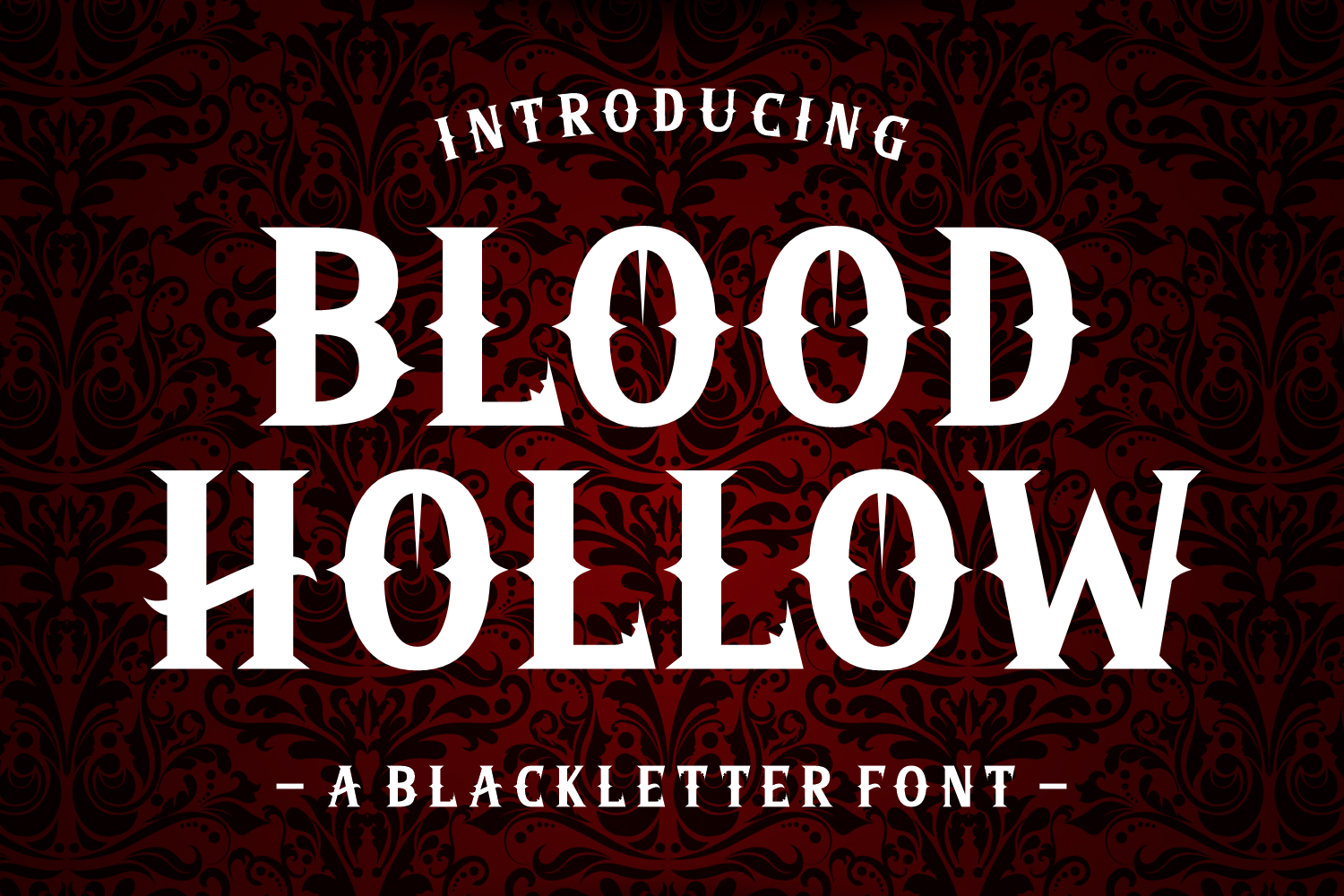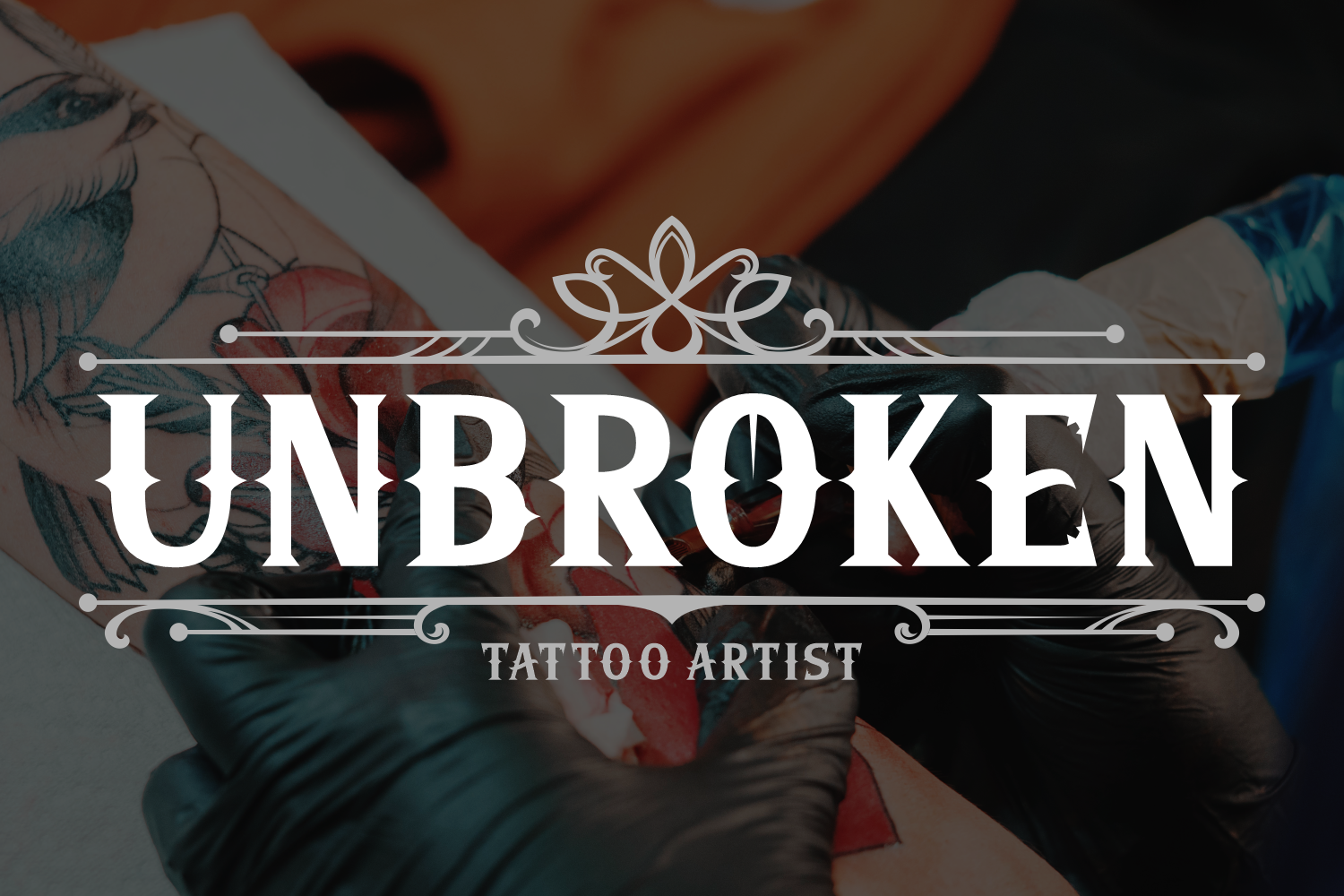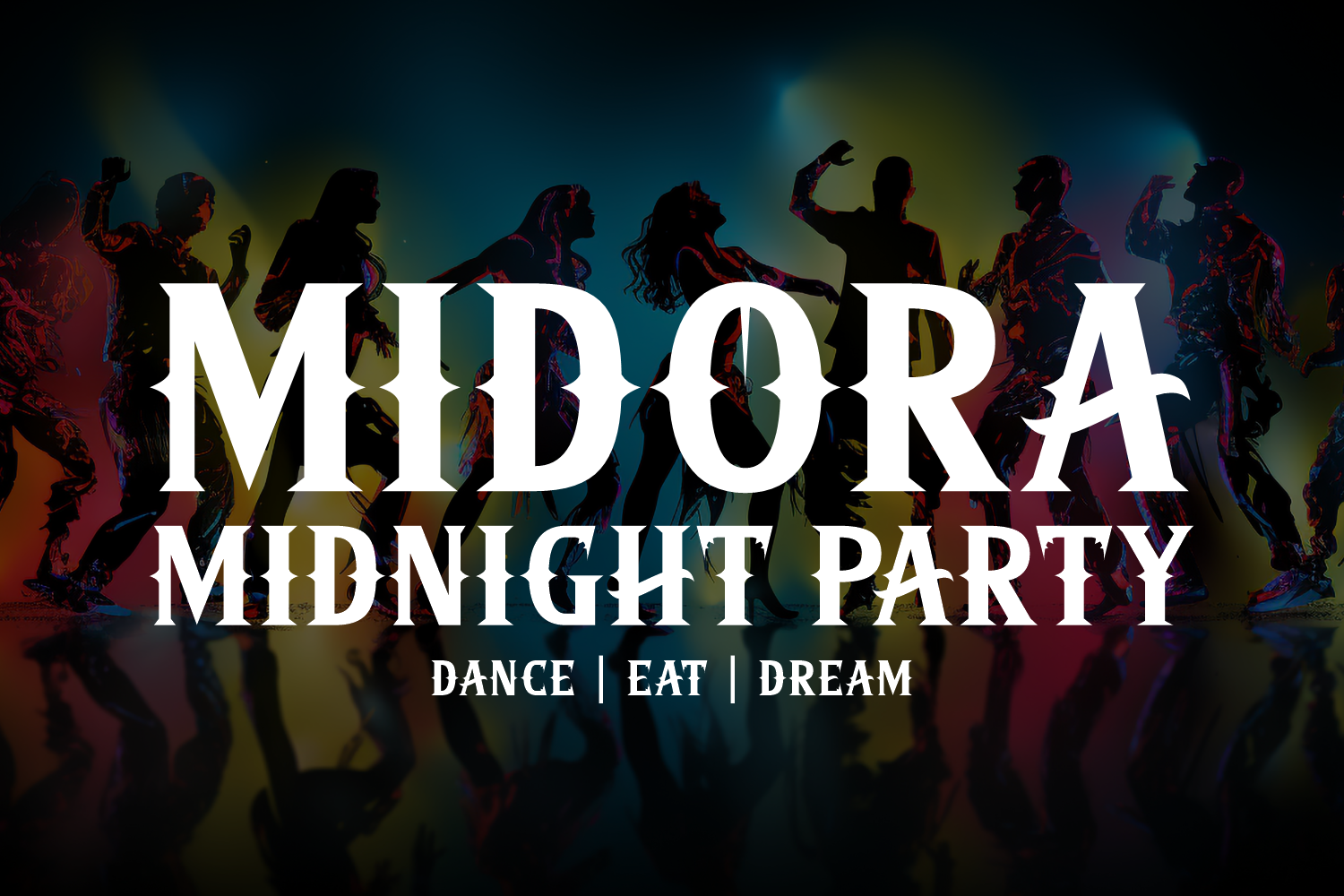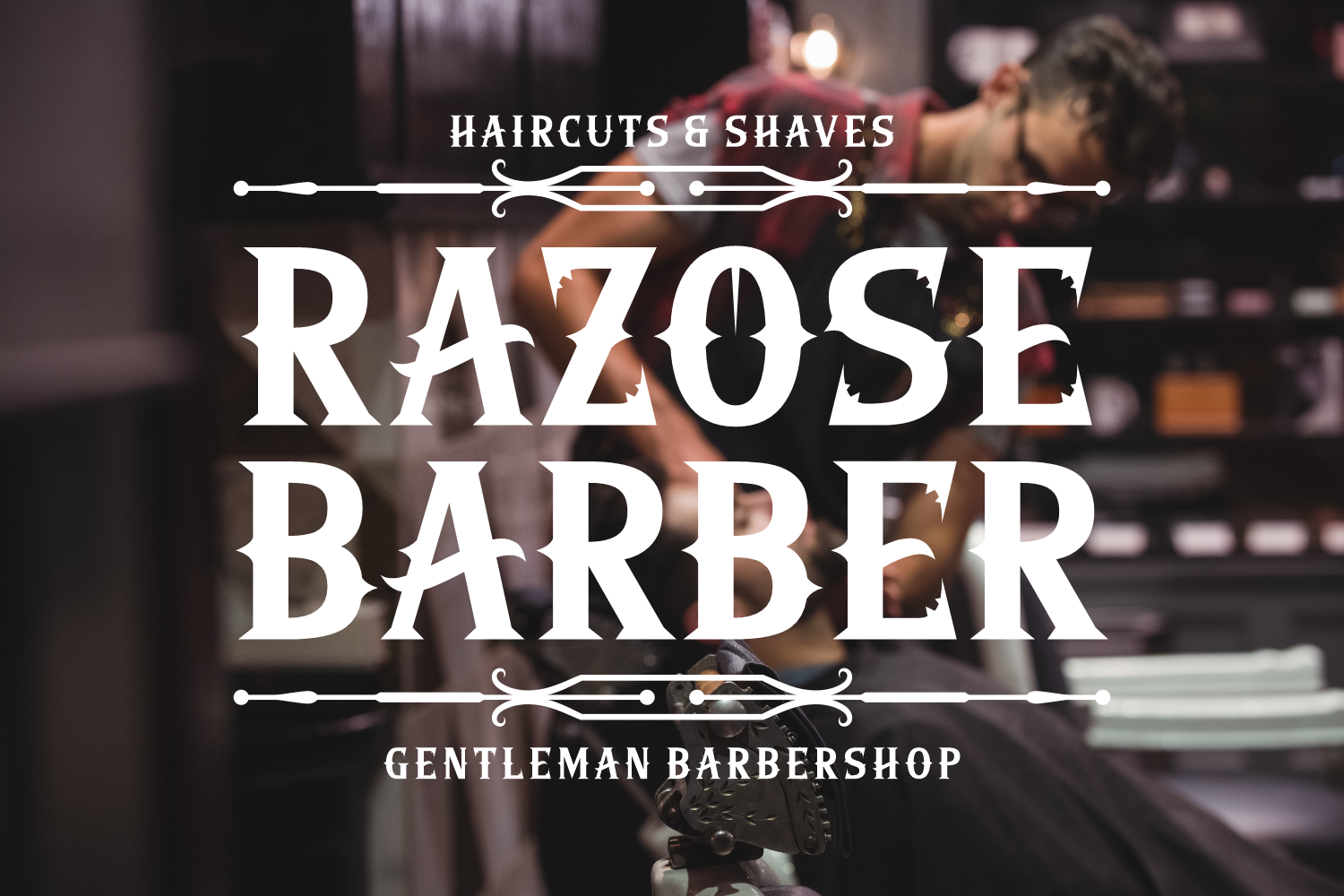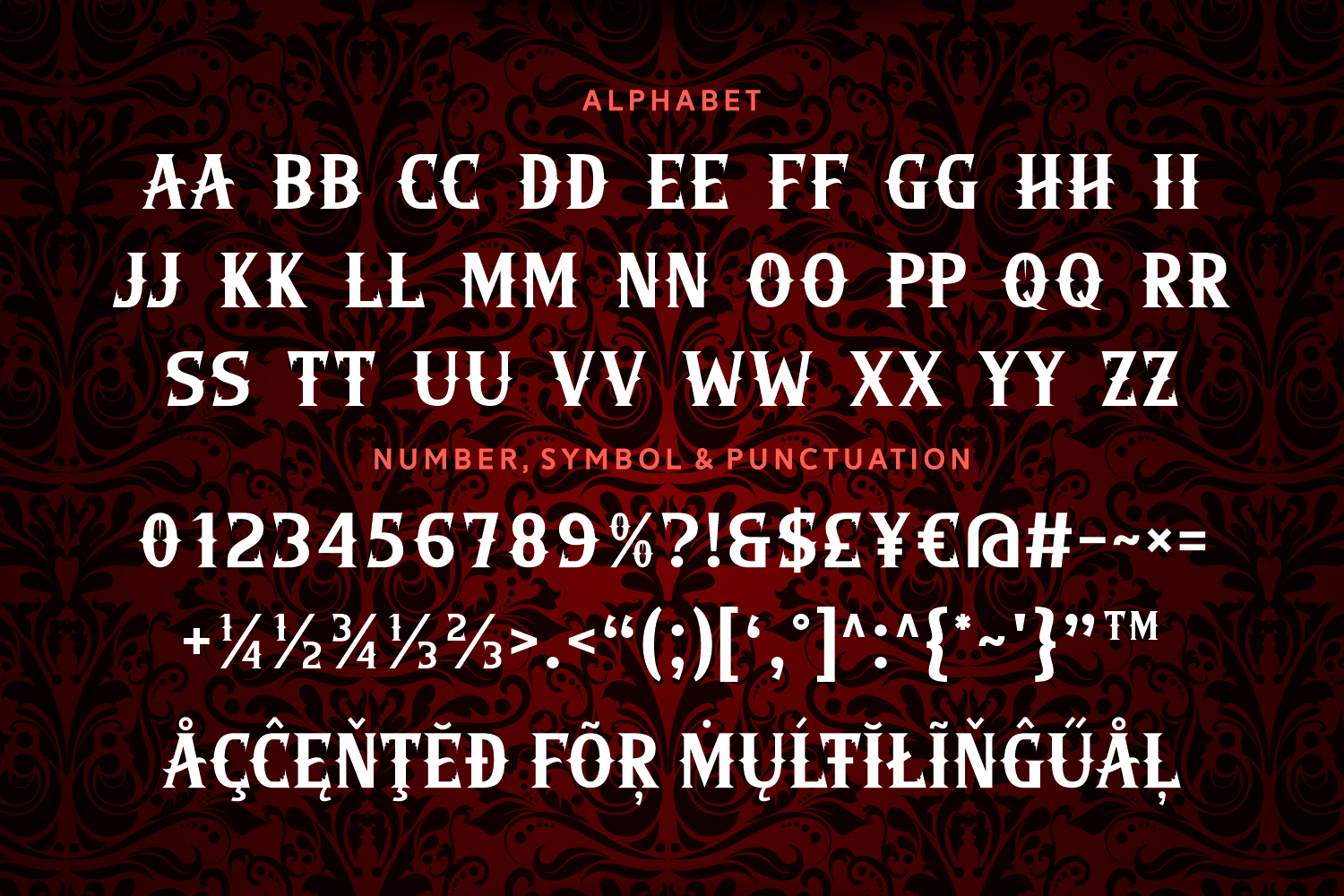
Blood Hollow is a sharp, stylized blackletter font designed to make a bold impact. Featuring pointed spires and high-contrast strokes, it's ideal for vampire novels, gothic branding, and Halloween merchandise. This font blends elegance and menace for a dramatic visual statement.